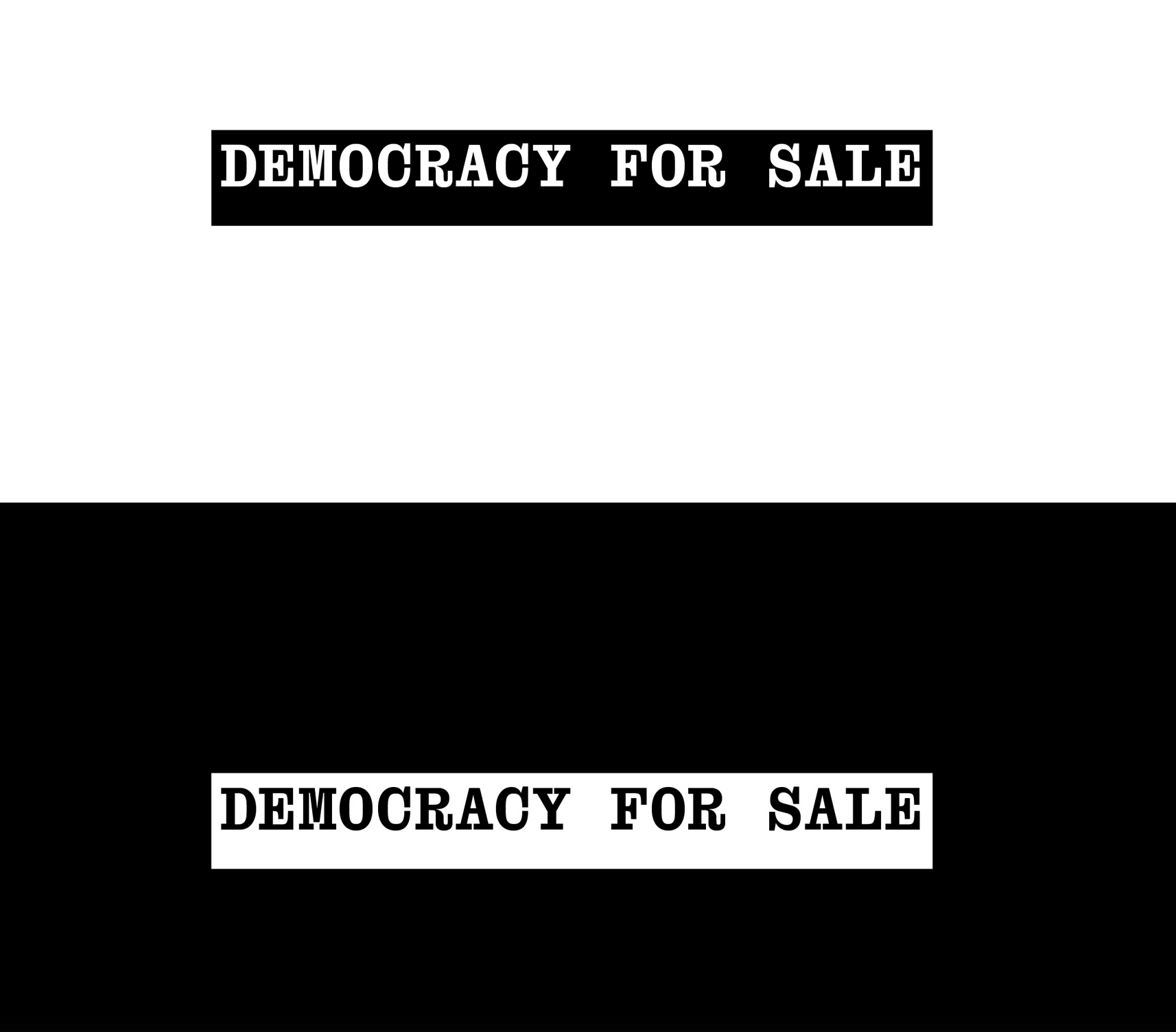
Hello Font ID community, I am trying to id this beautifully compact font I recently used from a modern foundry.
Unfortunately my laptop has vanished with this typeface, so am trying to trace back what it could be and where it could have come from, with no luck so far.
Has anyone seen anything similar to it? Looks like a modern Clarendon in narrow monospaced format.
I think it’s ABC Daily Slab Mono.